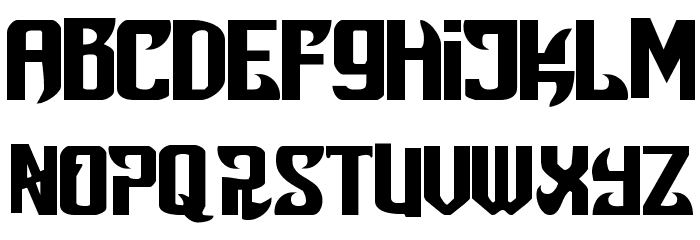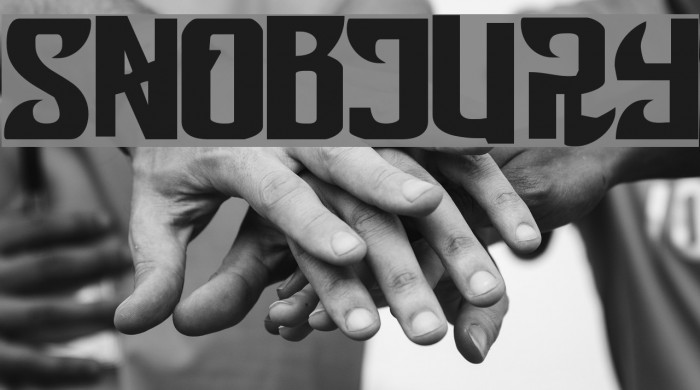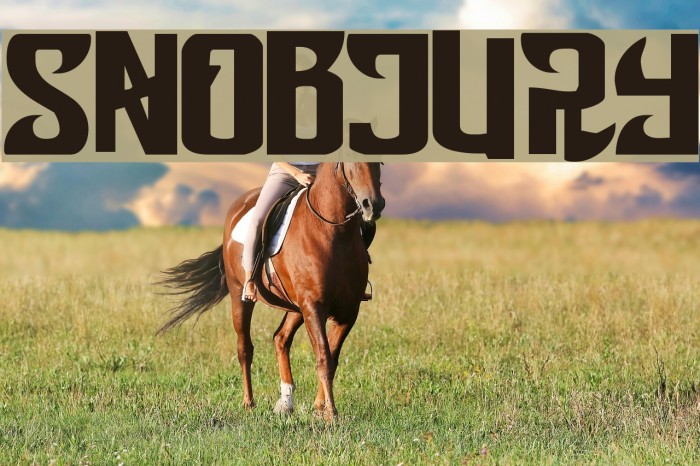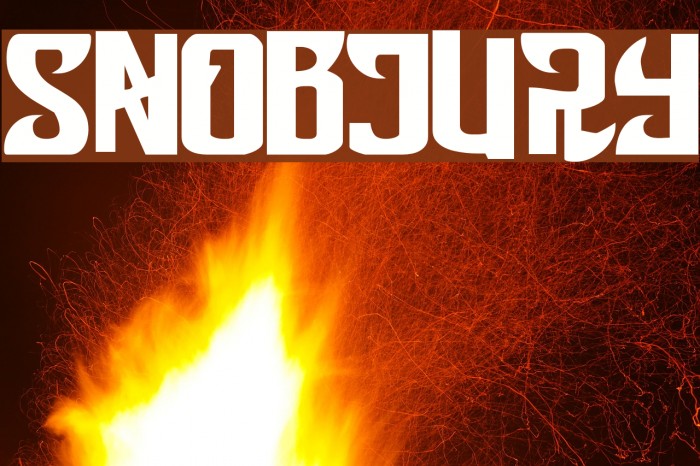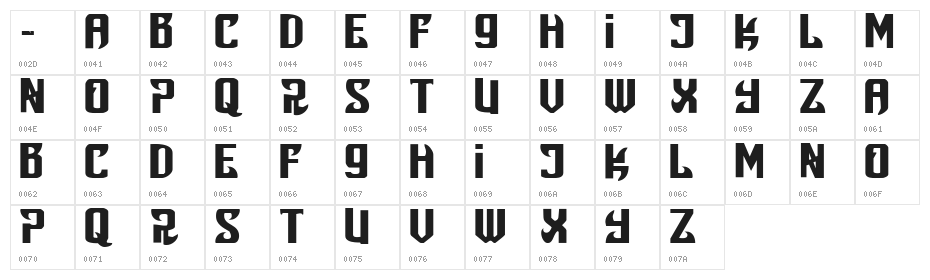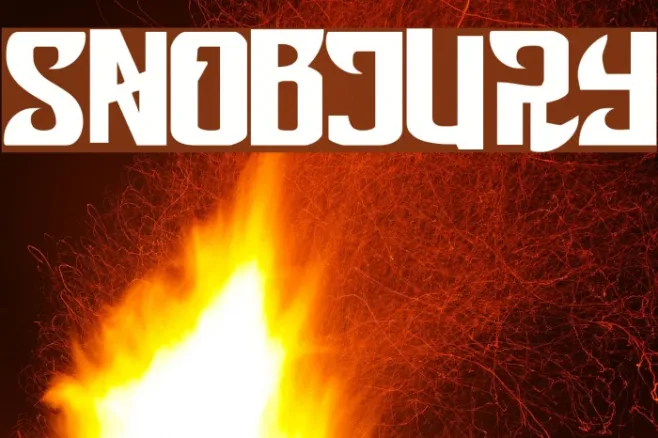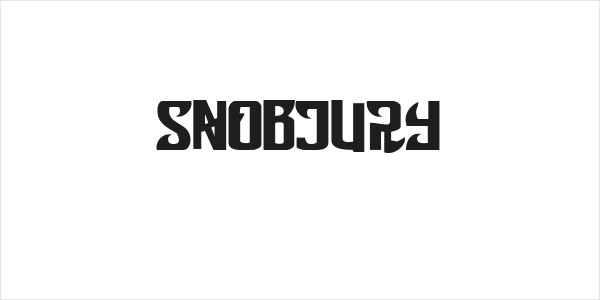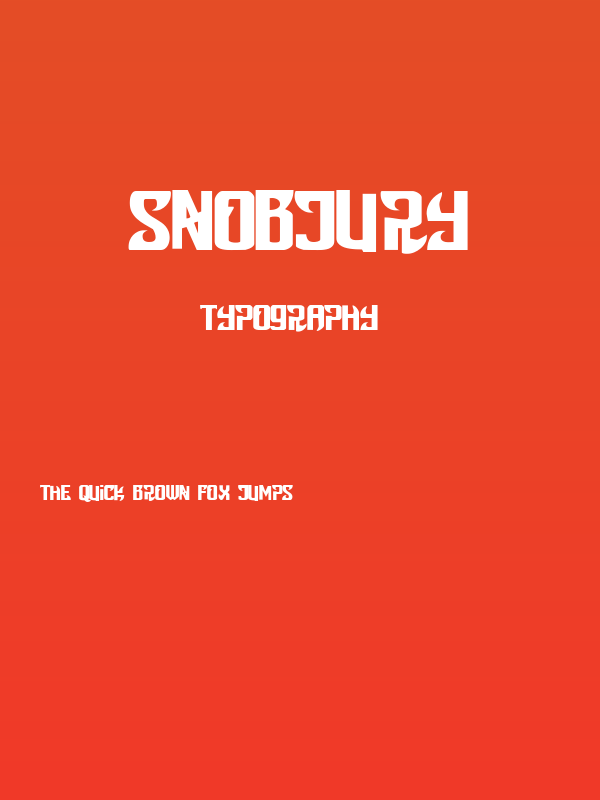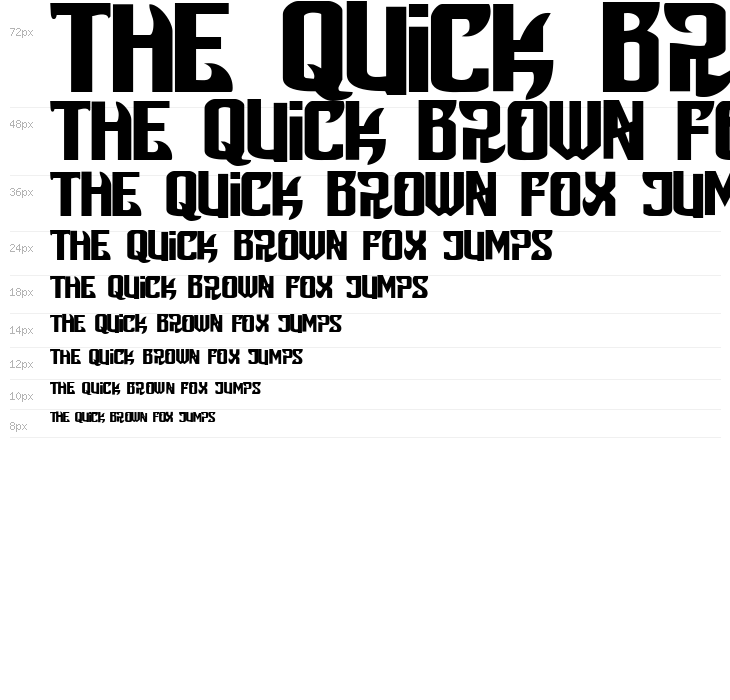
Snobjury Font
This font features a bold and striking design with a unique blend of geometric and angular elements. The characters are crafted with sharp edges and distinct cutouts, giving them a futuristic and dynamic appearance. The uppercase letters are particularly eye-catching, with their bold strokes and intricate details. The font maintains a consistent weight throughout, ensuring readability while still making a strong visual impact. Its modern aesthetic makes it suitable for projects that require a bold statement, such as branding, posters, and headlines. The overall style is both contemporary and edgy, making it a versatile choice for various design applications.
A bold, geometric font with sharp, angular elements and a modern aesthetic.
- Proposed Projects: Ideal for branding, posters, headlines, and any design needing a bold, modern statement.